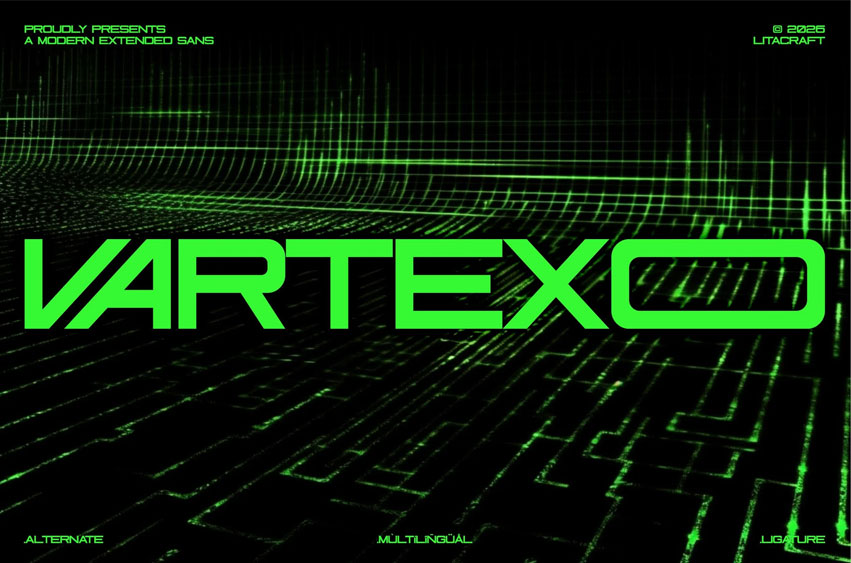
Vartexo Font
Vartexo Font Step into the neon-lit future with Vartexo, a futuristic high-contrast display typeface designed for the next era of digital branding. Born from the intersection of cyberpunk aesthetics and industrial precision, Vartexo delivers a sharp, wide-profile look that commands attention instantly.
Whether you are designing a high-octane racing game, a sleek tech interface, or cinematic movie titles, Vartexo provides the perfect balance of readability and aggressive futuristic style. Its bold weight and unique glyph structures make it ideal for headlines that need to feel “hard-wired” into the system.
• Complete Set Alphabet
• Unique Ligatures and Stylistic Alternates: Over 50+ custom combinations to create unique, logo-like typography instantly.
• Multilingual Support: Full Multilingual Support for Western, Central, and South Eastern European Languages.
• Multi-Industry Versatility: Perfect for Cyberpunk Art, UI/UX Interfaces, Movie Titles, Music Events (EDM), Automotive Branding, and Hi-Tech Branding.